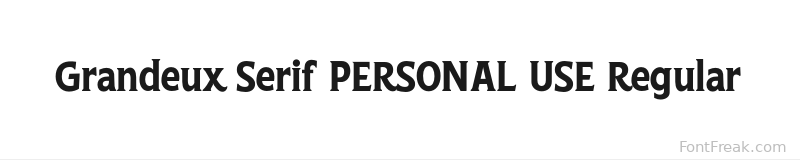
Grandeux Serif PERSONAL USE Regular
About Grandeux Serif PERSONAL USE Regular
Grandeux Serif PERSONAL USE Regular, designed by Mans Greback, is a striking serif font that embodies elegance and sophistication. This typeface features a well-balanced stroke weight that enhances its readability while offering a touch of refinement. The contrast between thick and thin lines is thoughtfully executed, contributing to its classic yet contemporary aesthetic. The letterforms are spaciously arranged, ensuring clarity and legibility, making it suitable for a variety of applications.
This font is ideal for numerous use cases, including wedding invitations, where its graceful curves can add a personal touch to the special day. It also shines in branding projects for boutique shops, as its sophisticated style can convey a sense of quality and exclusivity. Restaurant menus will benefit from its inviting appearance, helping to create a warm atmosphere for diners. Additionally, Grandeux Serif works beautifully for editorial layouts, giving a refined look to magazine covers and articles. Content creators will find this font a great choice for crafting visually appealing social media graphics and personal projects.
What sets Grandeux Serif apart is its ability to blend traditional serif characteristics with a modern twist, creating a unique visual identity. Whether you're designing a heartfelt invitation or a sleek brand logo, this font adds a layer of sophistication that is hard to overlook. Don’t miss out on the opportunity; you can easily access the Grandeux Serif PERSONAL USE Regular font free download and start enhancing your designs today.